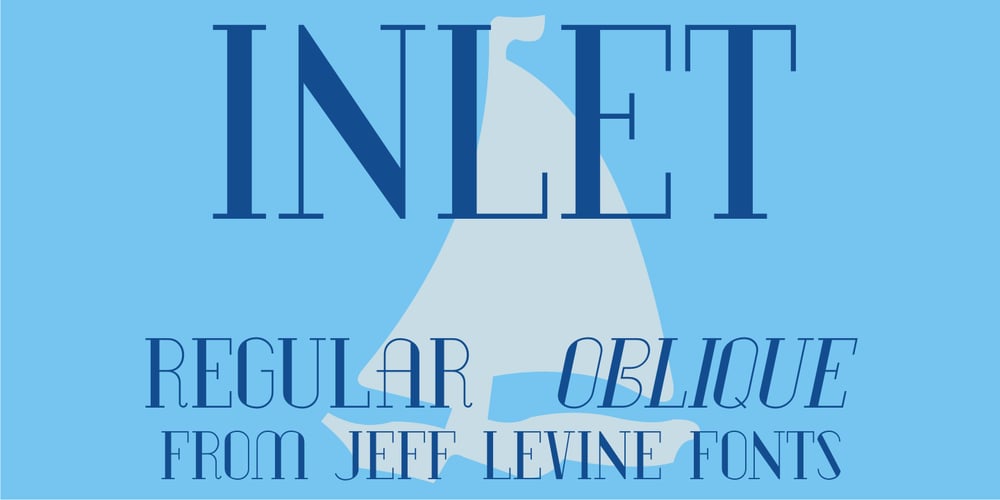
Inlet JNL Font Family was designed by Jeff Levine and published by Jeff Levine. Inlet JNL contains 2 styles and family package options. An interesting bit of Art Deco influenced serif hand lettering was found on the cover of the sheet music for 1938’s “Boatman’s Serenade”. This became the model for the digital font Inlet JNL; available in both regular and oblique versions.